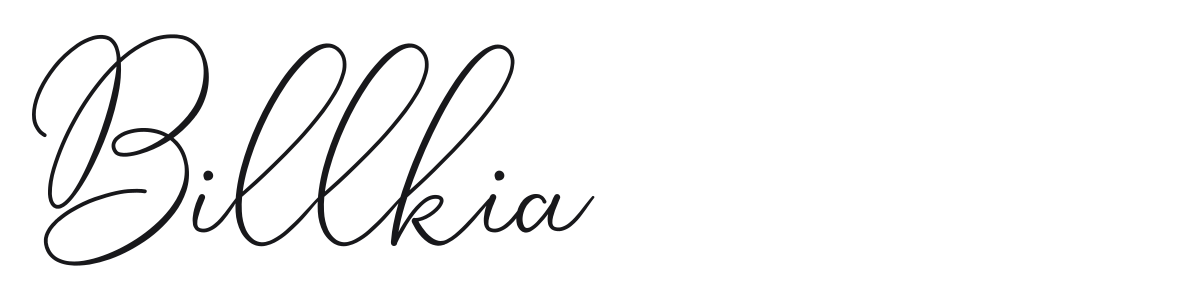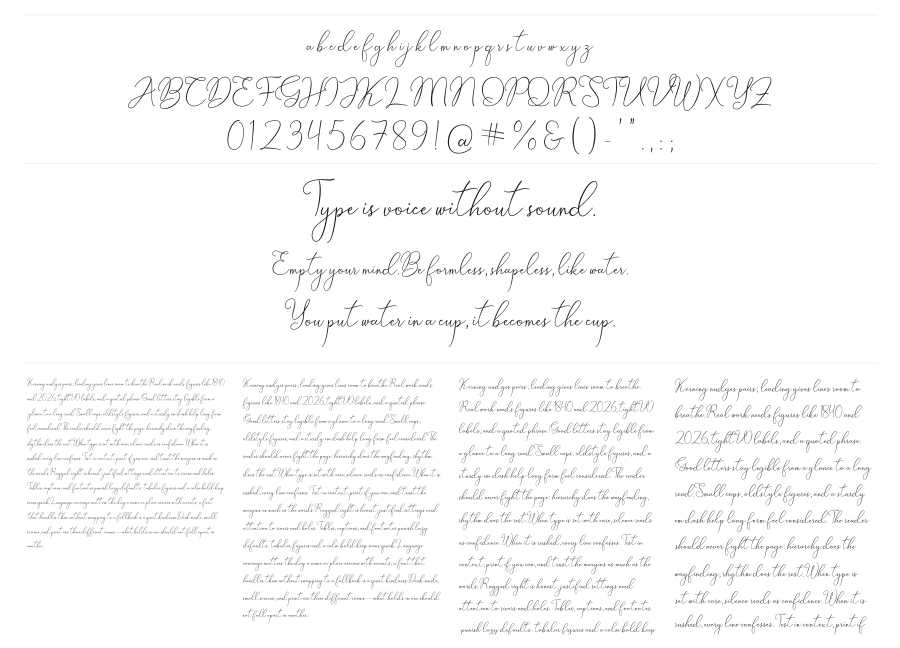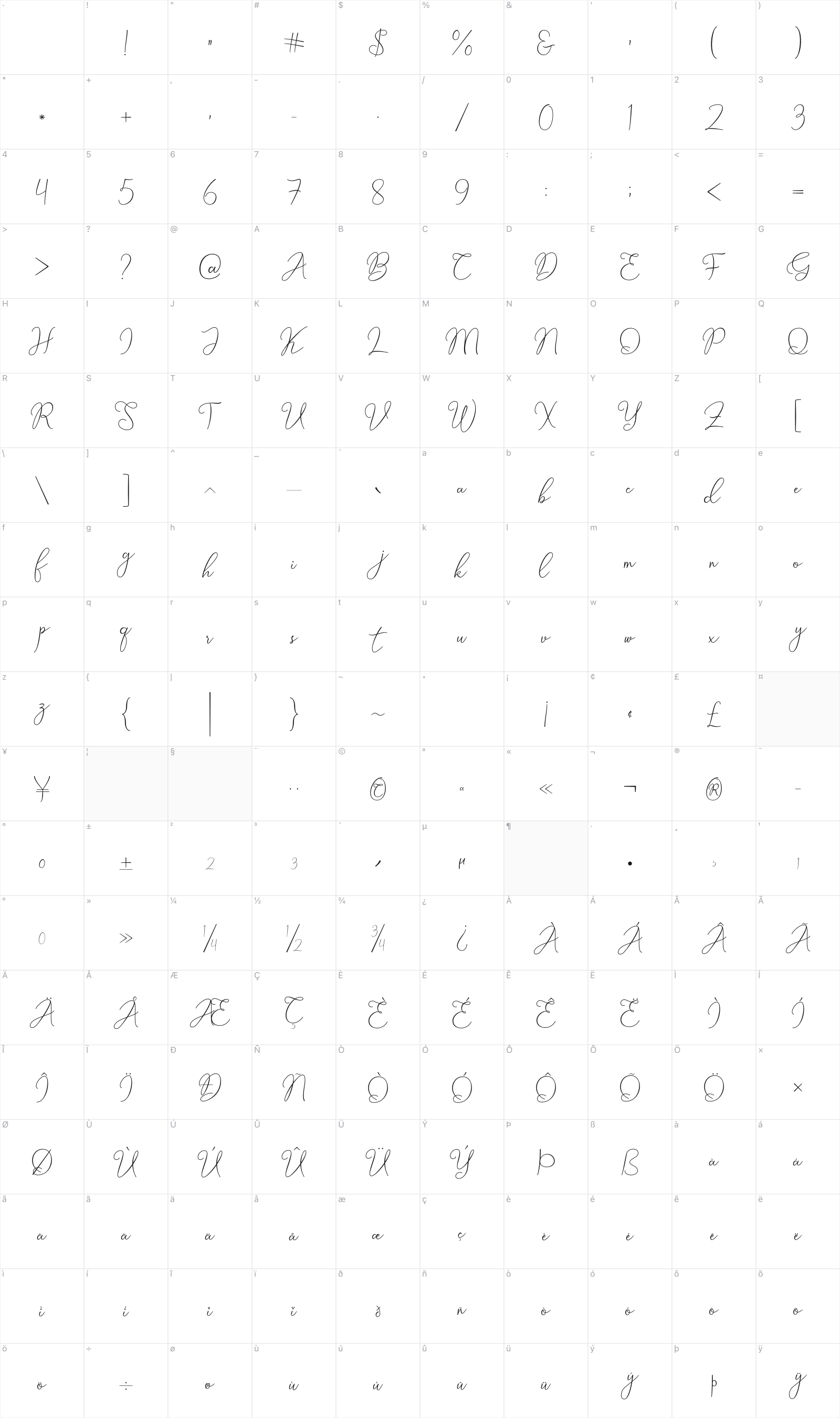
Billkia
Billkia is a flowing formal script with high stroke contrast and looping calligraphic curves that feel genuinely pen-drawn. Tall ascenders and intertwining descenders give it a romantic, airy quality well-suited to wedding stationery and luxury branding. The design stays legible despite its ornamentation, with a light weight that photographs well at large sizes.